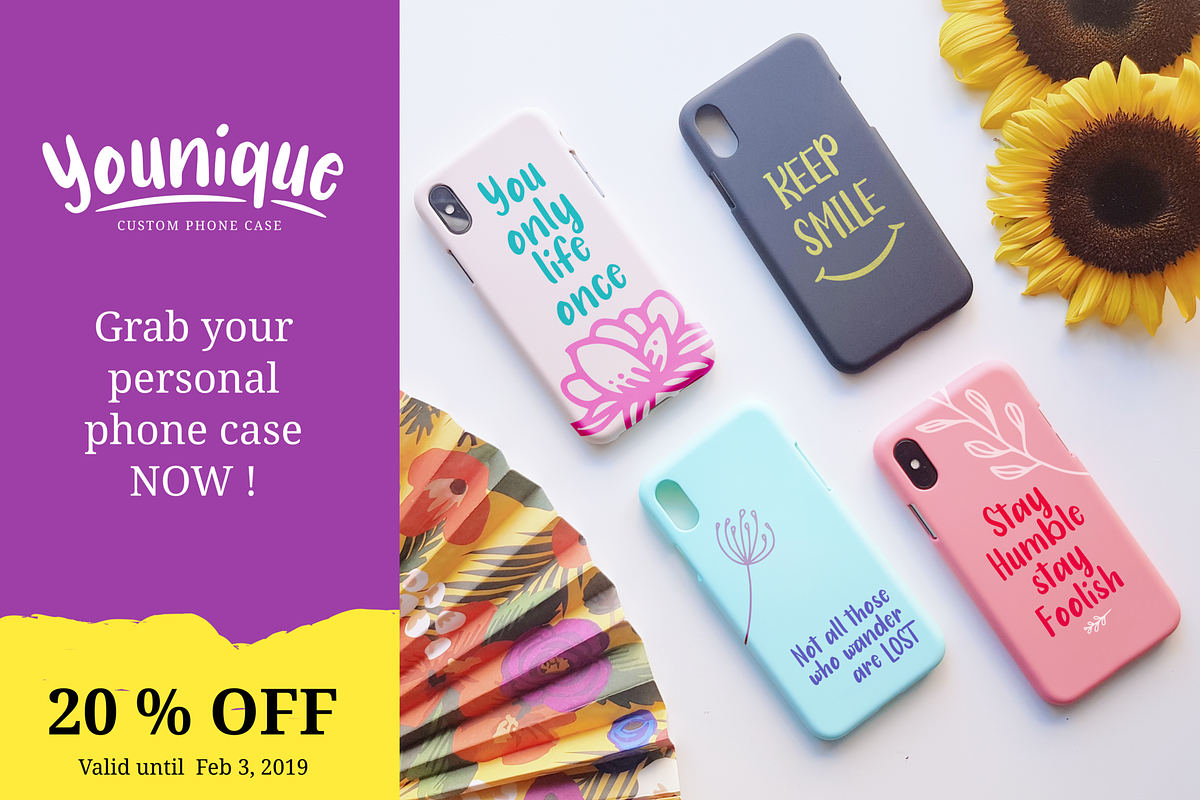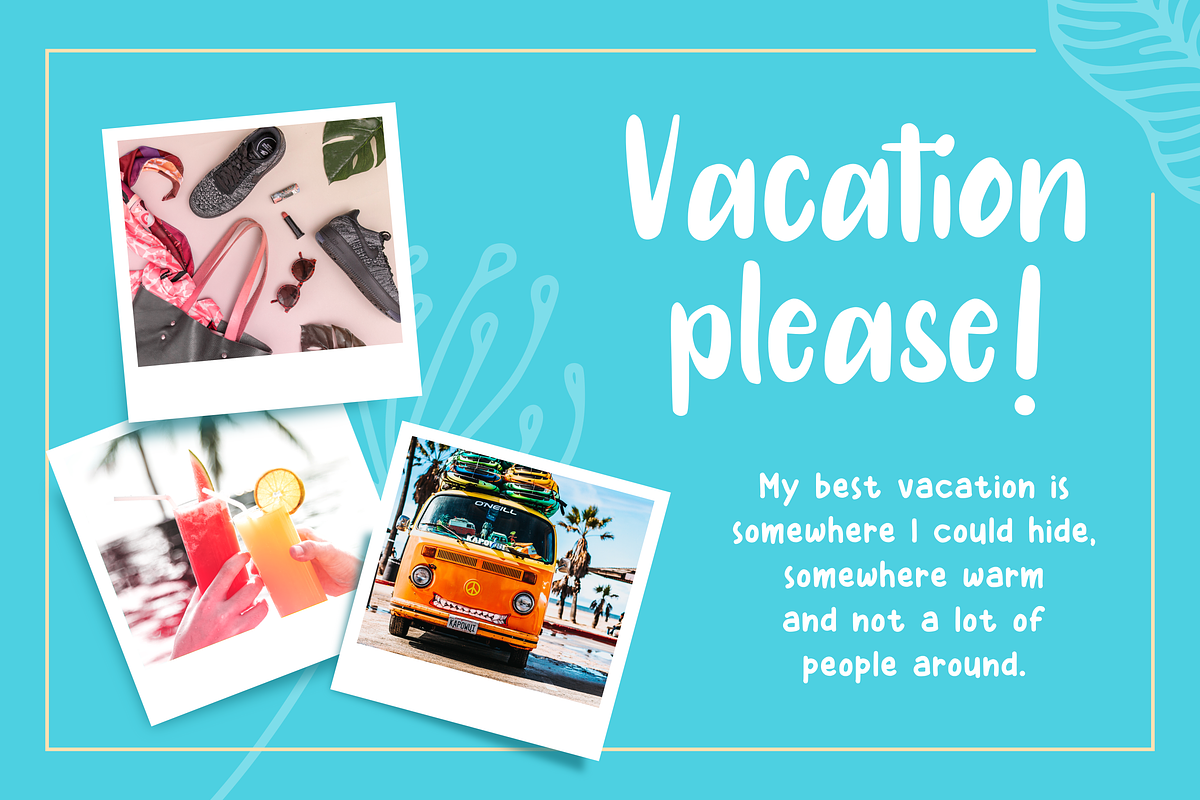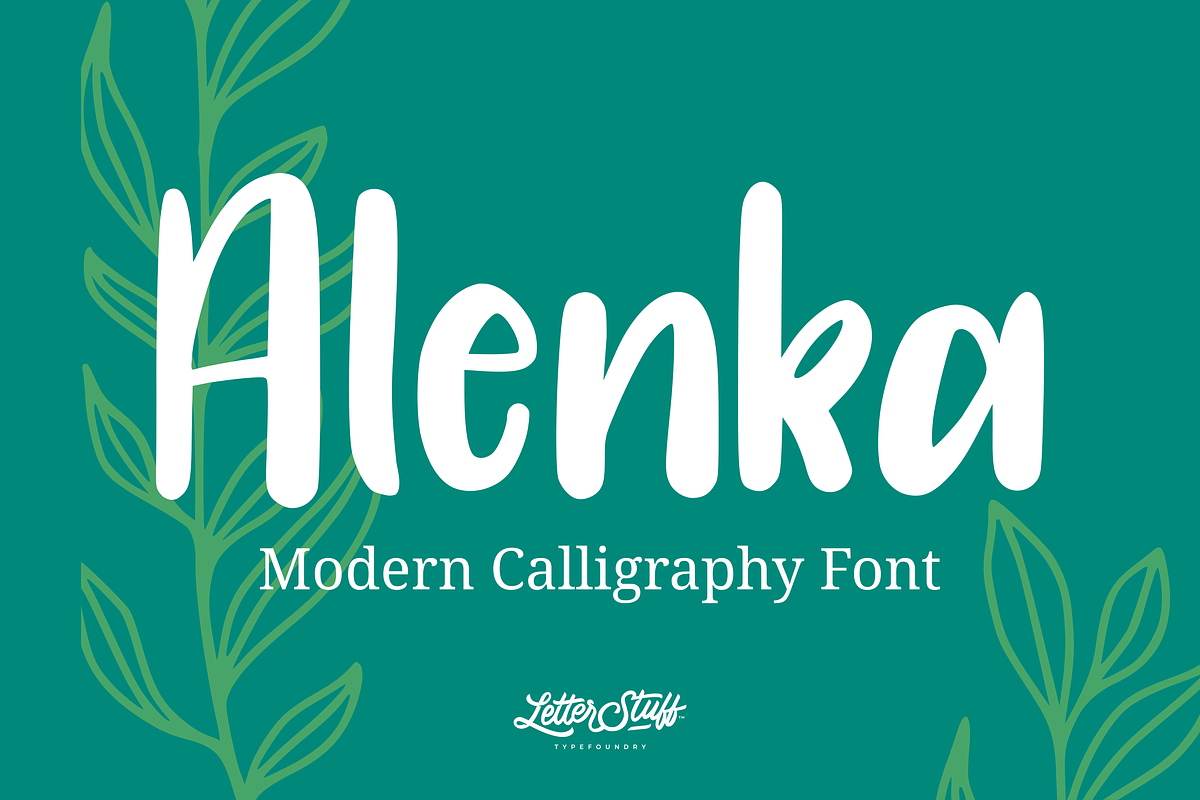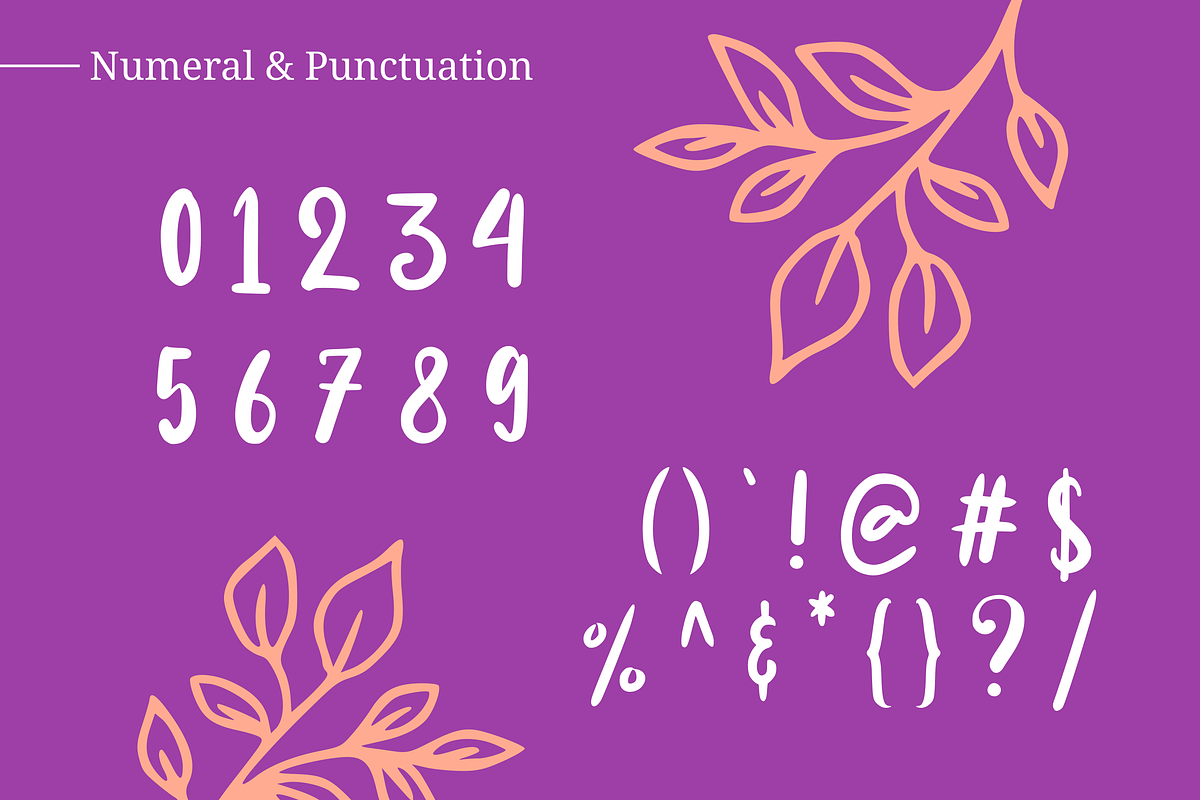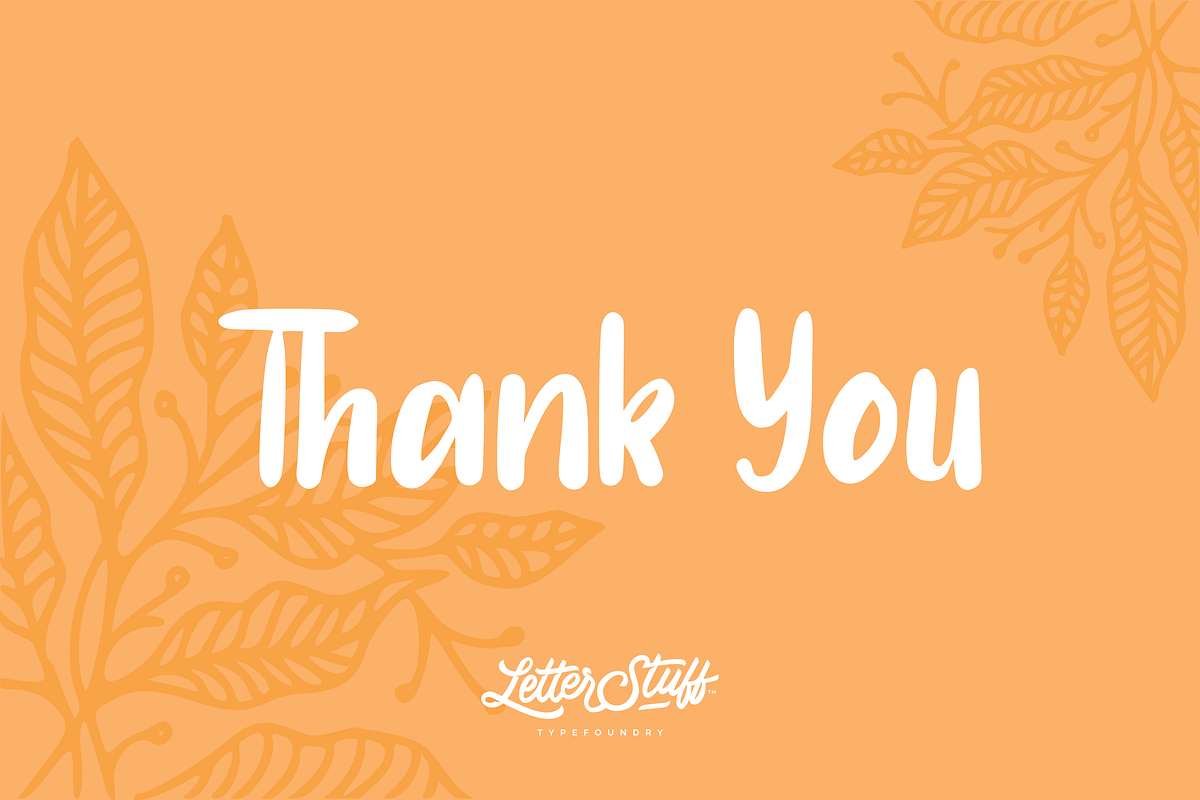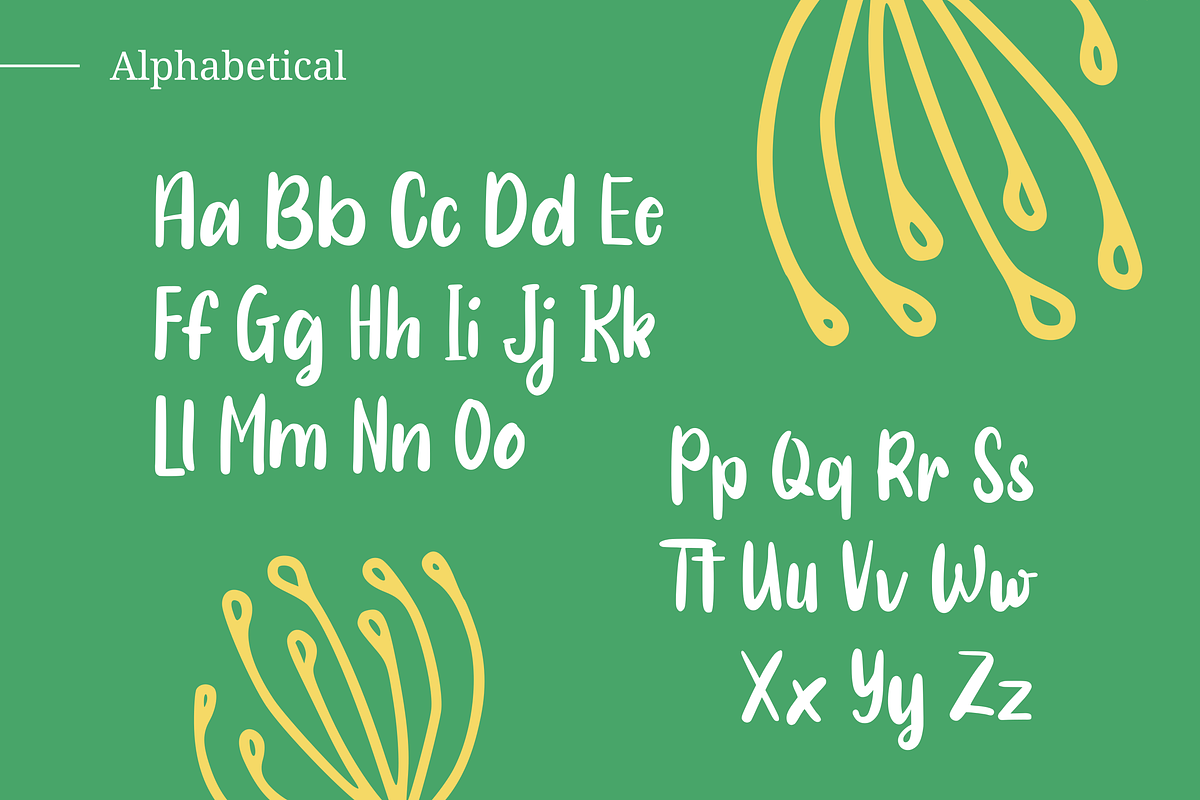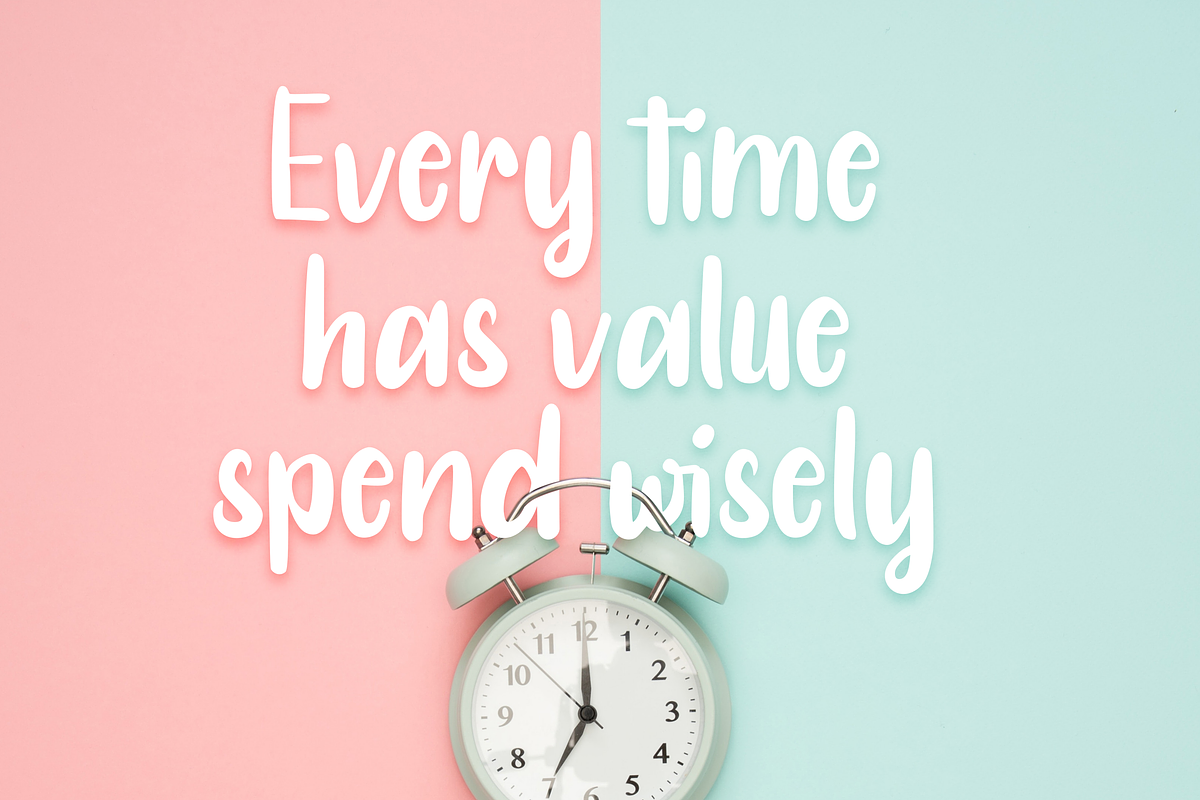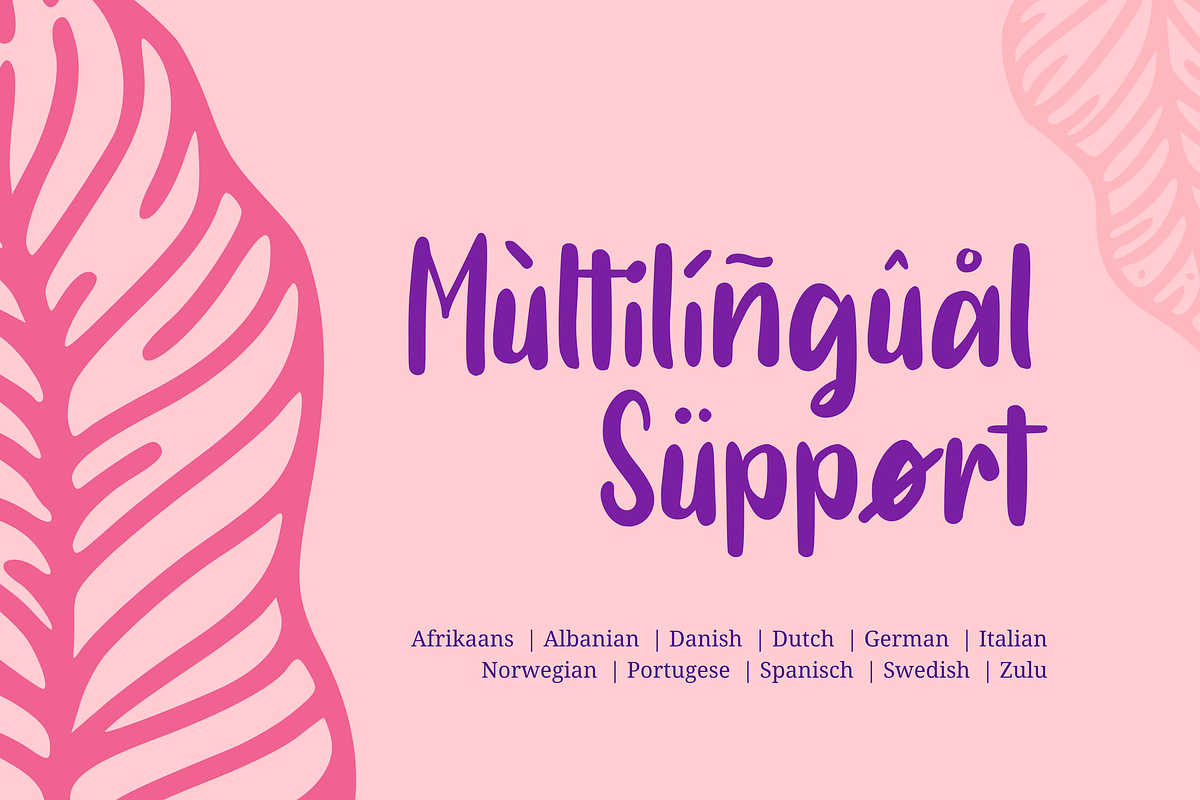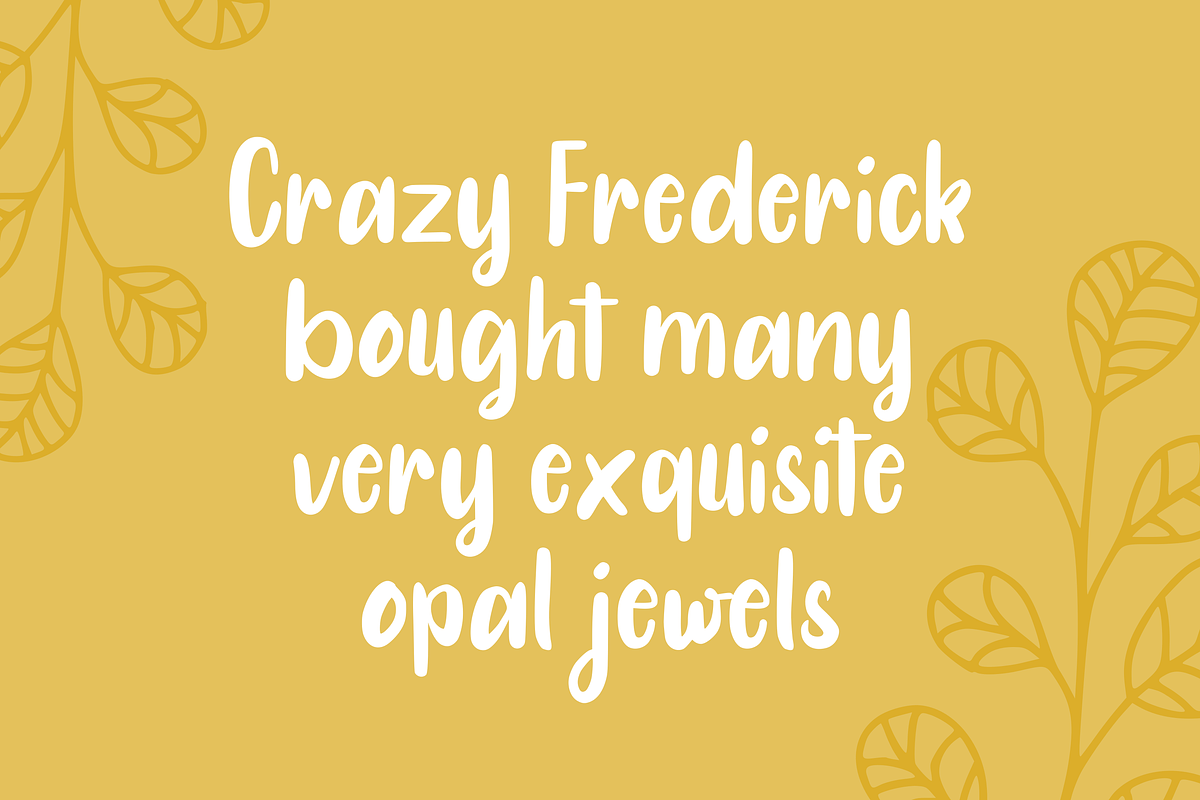
Alenka - Handlettering Font
Introducing, Alenka Brush . An awesome typeface was inspired by modern handlettering calligraphy. You can create modern typography art for sale on totes, mugs, phone case, and more. Create eye catching logos, adorable invitations, and social media promo images and shareable quotes.
- More than 190 Glyphs
- Multilingual support : Afrikaans, Albanian, Catalan, Danish, Dutch, English, German, Icelandic, Italian, Norwegian, Portugese, Spanisch, Swedish, Zulu